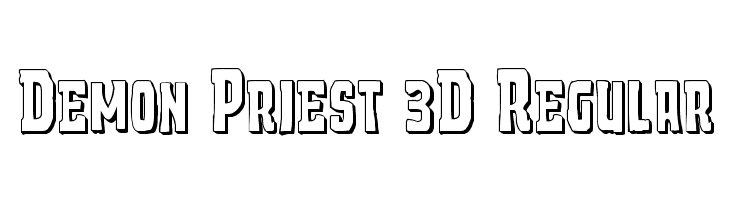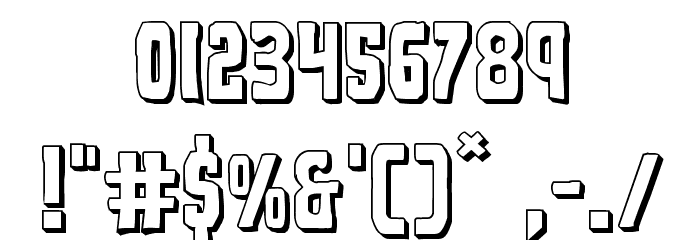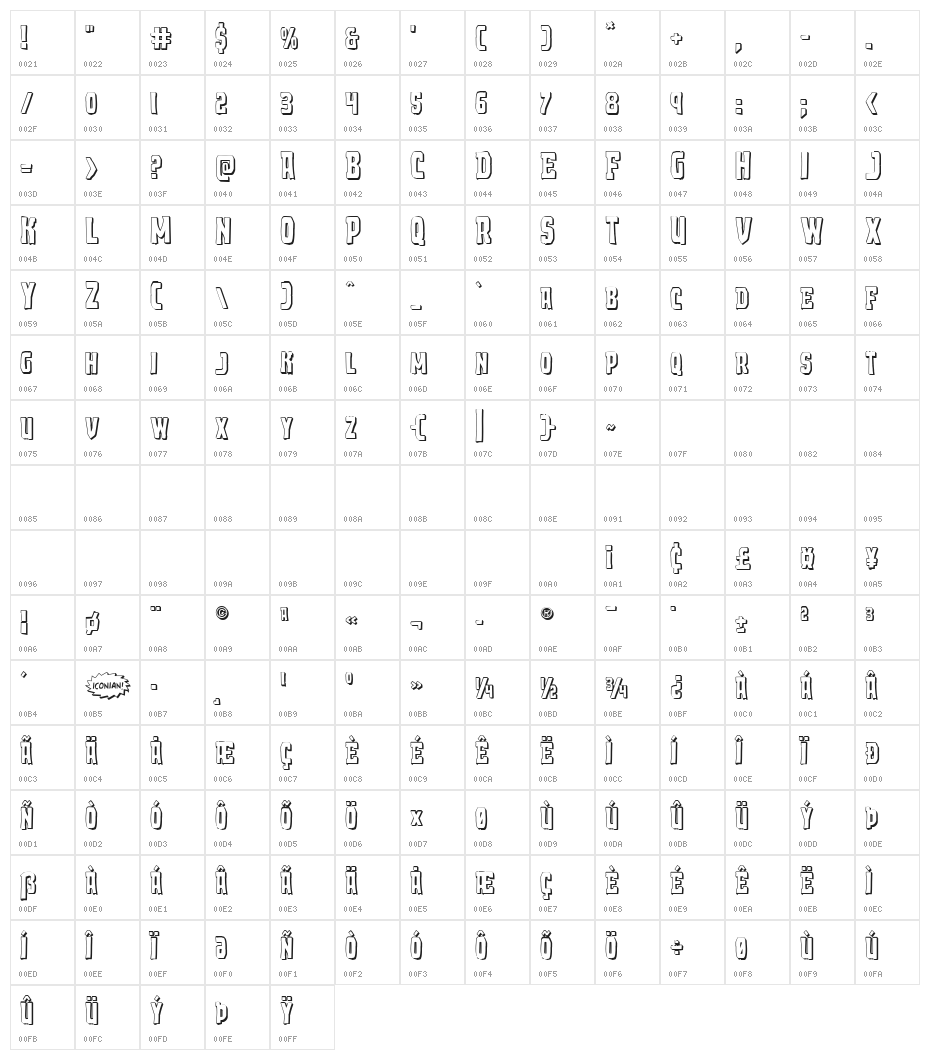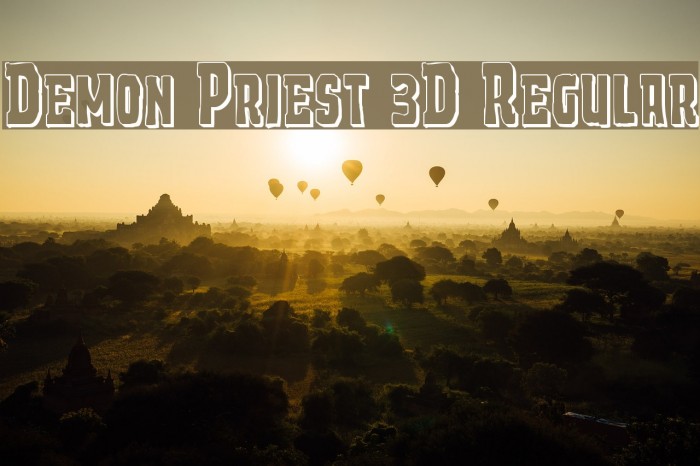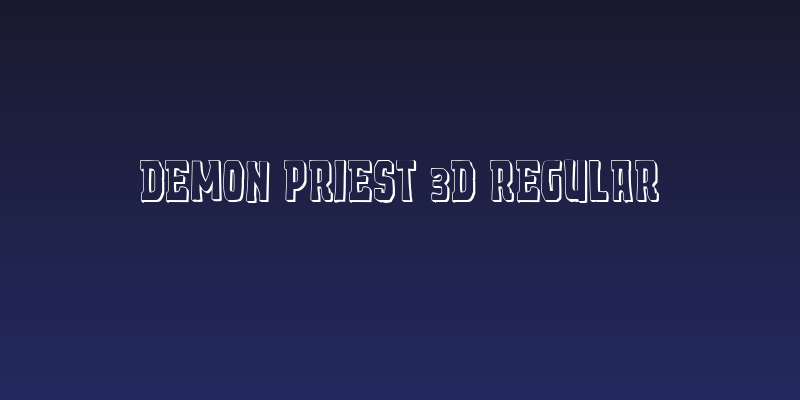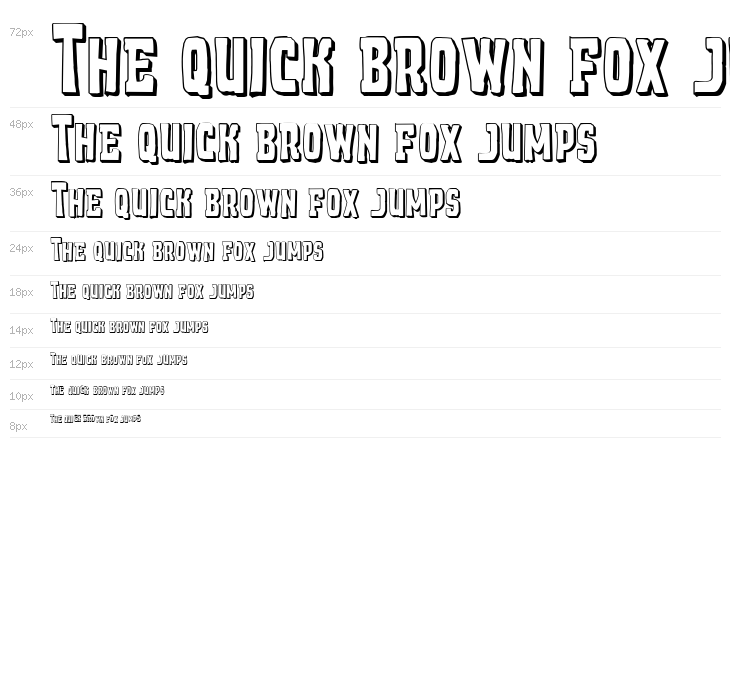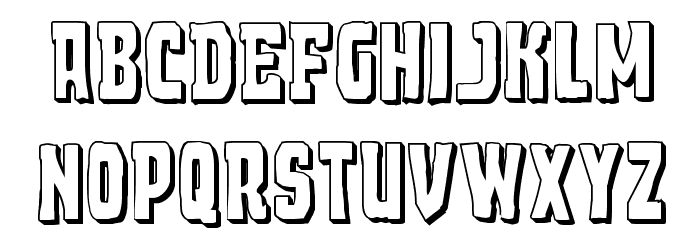
Demon Priest 3D Regular Font
Demon Priest 3D Regular Description
This font features a bold, three-dimensional appearance with a shadow effect that gives it a striking and impactful look. The characters are uppercase and have a blocky, geometric style with sharp angles and clean lines. The design is reminiscent of vintage or retro aesthetics, making it suitable for projects that require a bold statement. The numbers and special characters maintain the same bold and dimensional style, ensuring consistency across all elements.